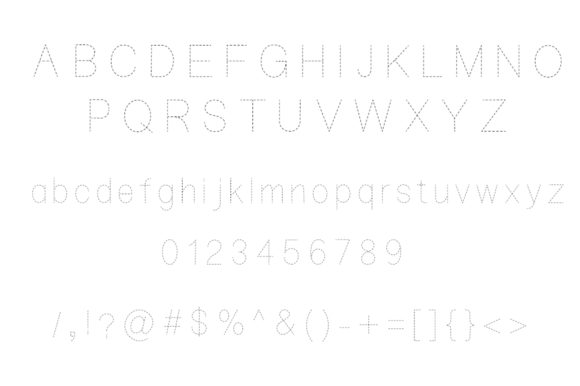
Introduction to Little Kidos Font
Little Kidos is a light and thin display font.
Its simple yet unique style makes this font incredibly fit for a wide variety of designs Use it to elevate your projects to the highest levels.
Key Features of Little Kidos Font